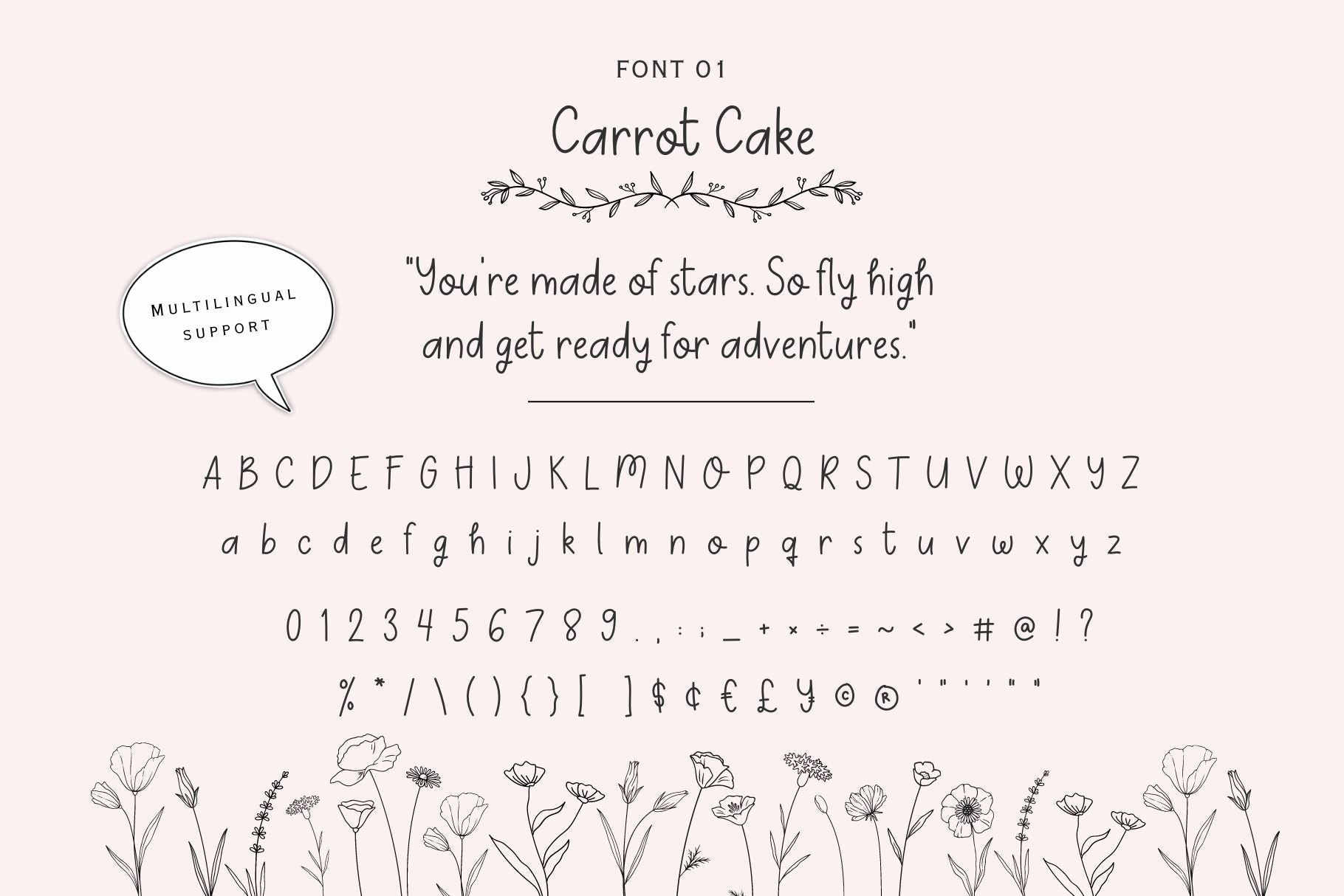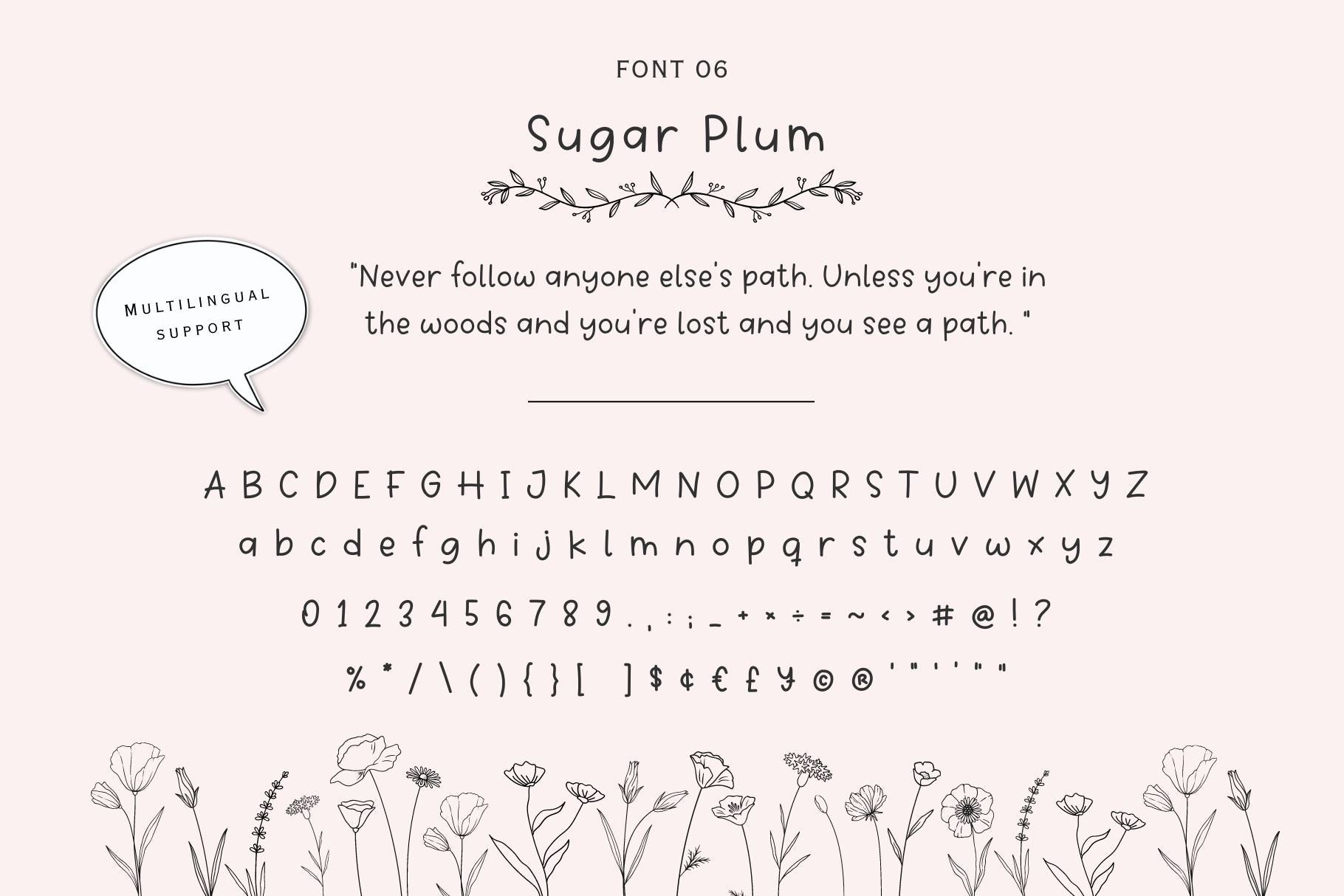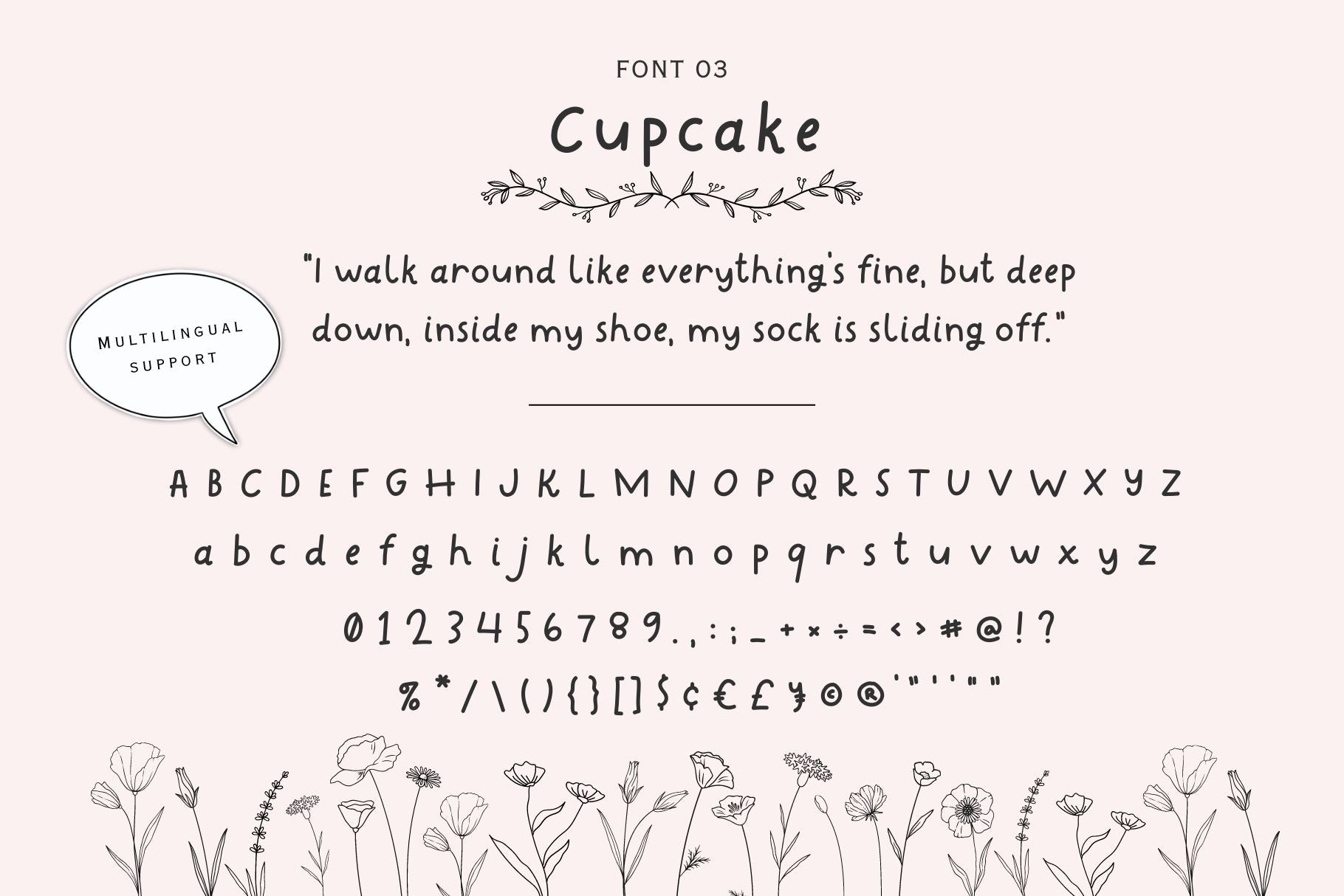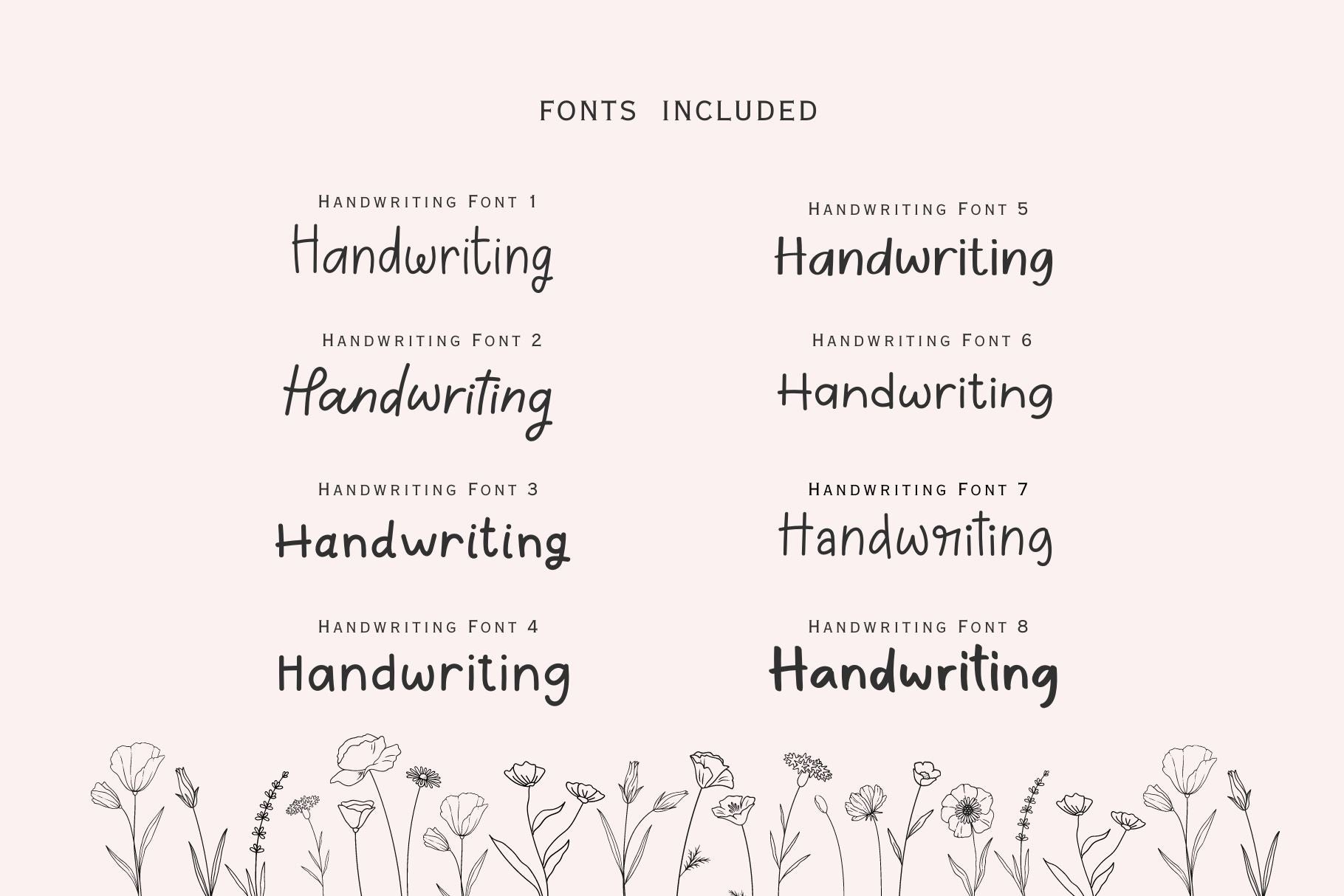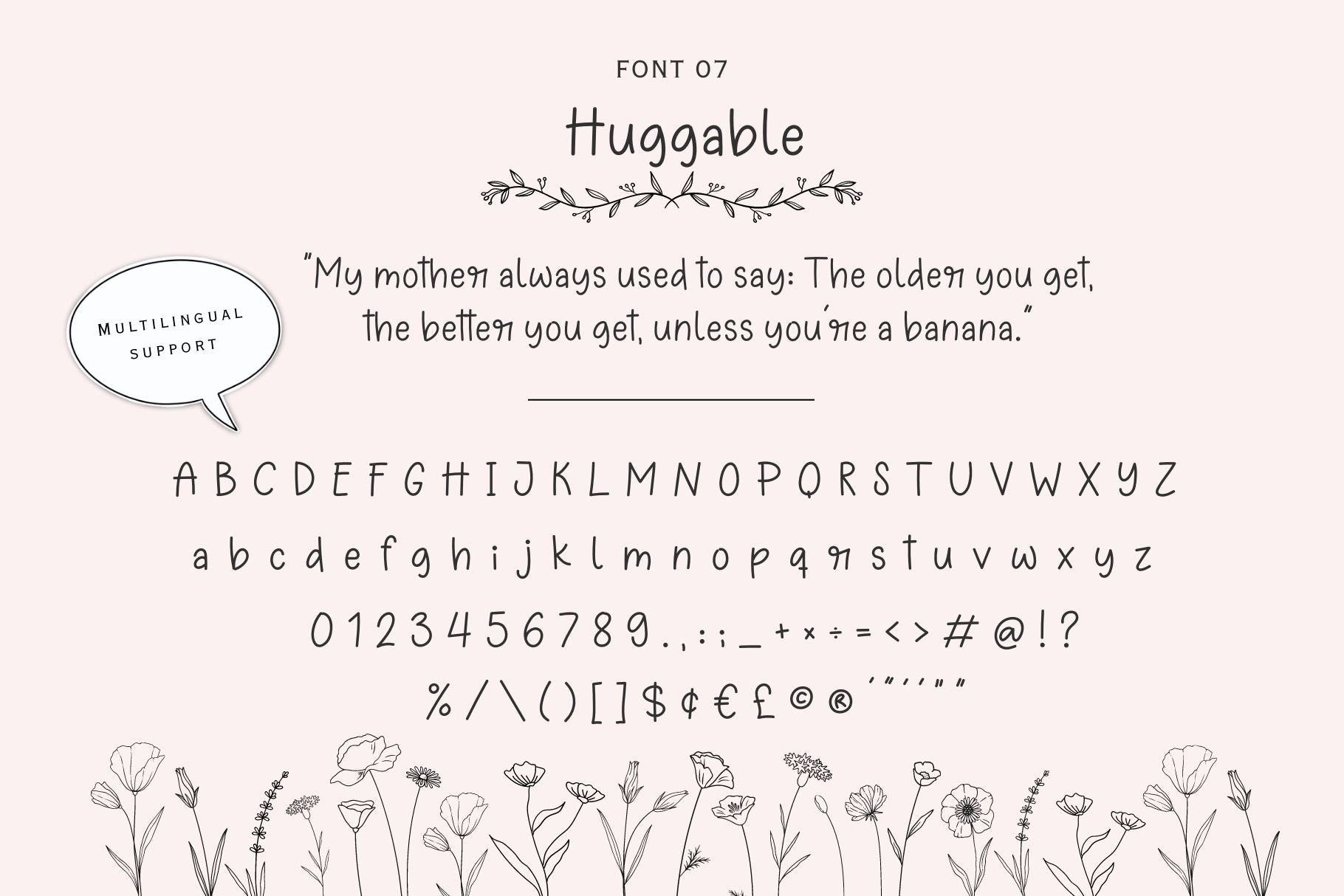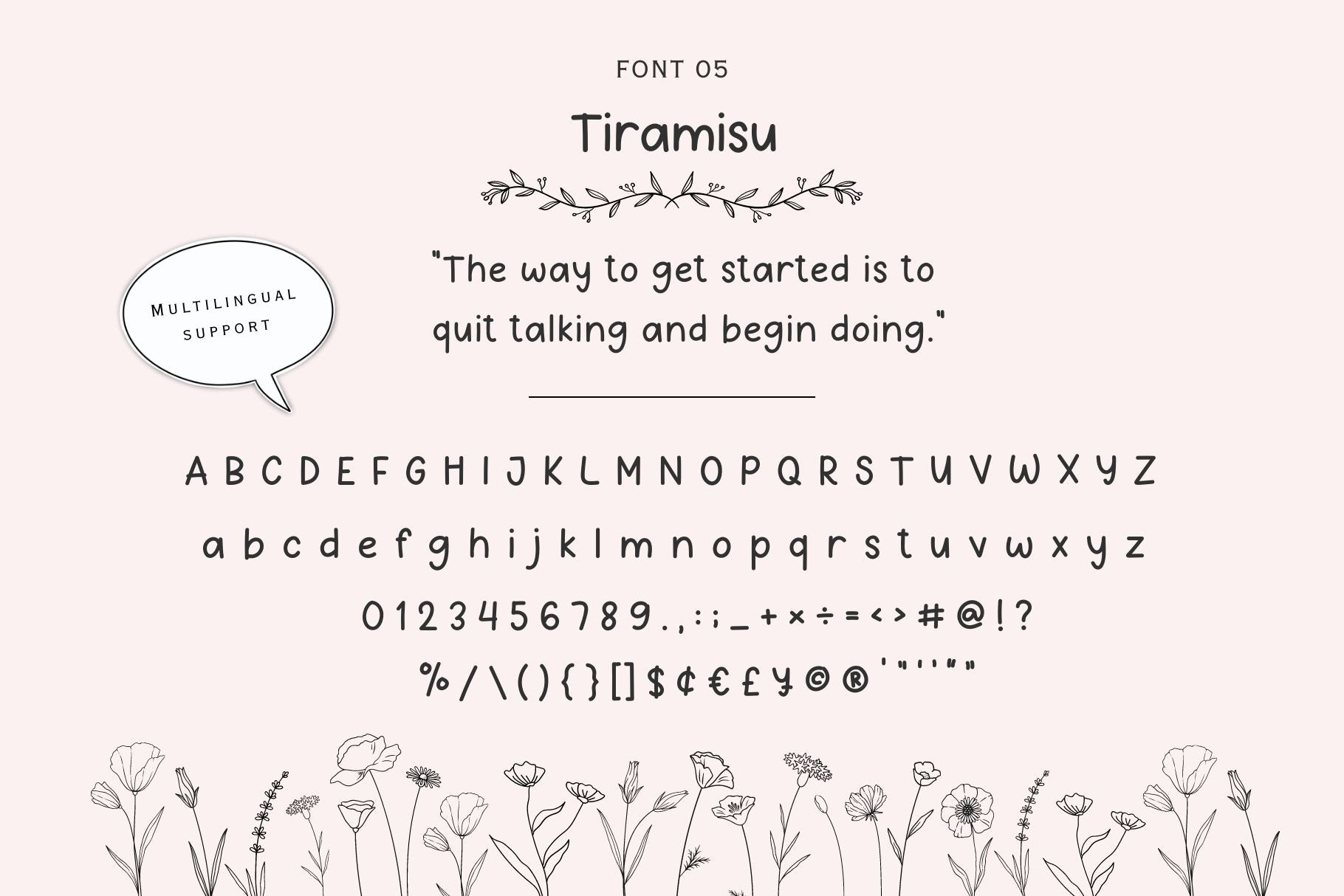
About Handwriting Font Bundle
Introducing the Handwriting Font BundleвҖ“ Unleash your creativity with this bundle including 8 fun fonts that allows you to effortlessly combine different typefaces to create unique and fun designs. В Perfect for digital notes, planners, logos, notebooks, journals, labels, blogs, quotes, greeting cards, apparel, posters, baby clothing, picture books and so much more… basically anything that requires a handwritten look! рҹҳҚ В В All fonts in comes in OTF, TTF, WOFF & WOFF2 Uppercase Letters Lowercase Letters Numbers & Punctuation Multilingual Support В Characters: a b c d e f g h i j k l m n o p q r s t u v w x y z A B C D E F G H I J K L M N O P Q R S T U V W X Y Z 0 1 2 3 4 5 6 7 8 9 . , : ; ! ? ‘ \” вҖҳ вҖҷ вҖң вҖқ @ _ & # % * + – Г— Г· = ~ < > / \ ( ) { } [ ] $ Вў вӮ¬ ВЈ ВҘ В© В® в„ў В ГҖ ГҒ ГӮ Гғ Г„ Г… ГҶ ГҮ ГҲ Гү ГҠ ГӢ ГҢ ГҚ ГҺ ГҸ Г‘ Г’ Г“ Г” Г• Г– Гҳ Е’ Гҷ Гҡ Гӣ Гң Гқ Её Гһ Гҗ ЕҒ Е ЕҪ ВЎ Вҝ В« В» вҖ№ вҖә ВӨ вҖў В° Вұ вҲ’ В¶ В§ вҖ° вҒ„ вҖ“ вҖ” Г ГЎ Гў ГЈ ГӨ ГҘ ГҰ Г§ ГЁ Г© ГӘ Г« Г¬ Гӯ Г® ГҜ Гұ ГІ Гі Гҙ Гө Г¶ Гё Е“ Г№ Гә Г» Гј ГҪ Гҝ Гҫ Г° ЕӮ ЕЎ Еҫ Гҹ Дұ ^ ЛҶ ЛҮ ВЁ Лң ‘ Вҙ Вё вҖӣ вҖҡ вҖһ вҖҰ | вҖ вҖЎ